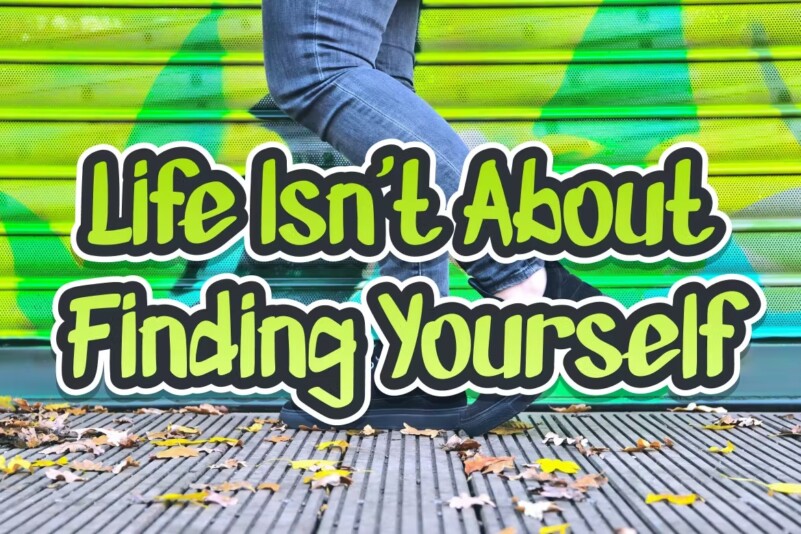
Panic Wall – Graffiti Font
Don’t panic if you have Panic Wall in hand. With her, you are ready to conquer the world of youth. The straight shape at the tip of the letters, brings the brave vibes of the young generation to your current project.
Perfect for magazines, posters, movie titles, music posters, YouTube covers, YouTube thumbnails, social media page covers, etc.